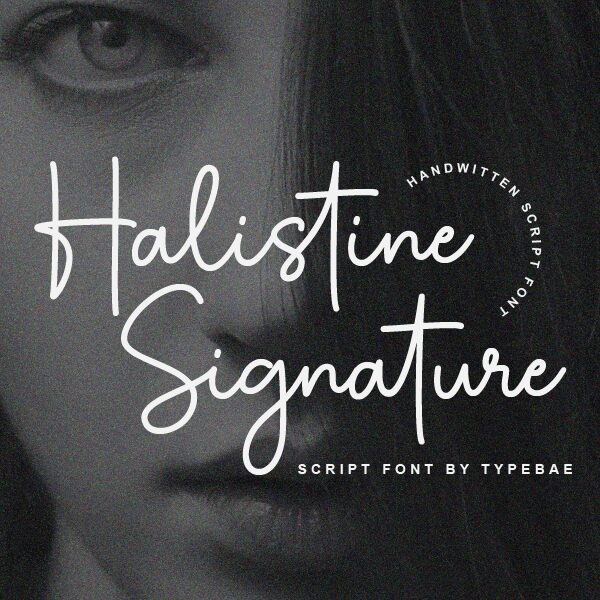
Halistine Signature
Halistine Signature font is a free handwritten font by Typebae Foundry that combines elegance with casual, modern aesthetics. With its light weight and flowing script style, it creates a personal touch, making any design charming and attractive.
Such a playful typeface fits various design purposes including logos and branding designs. Signature projects are perfect for apparel items like t-shirts or stationery ones like business cards. Other uses include social media posts, invitational cards for weddings or parties, flyers, packaging boxes, magazine covers etc.